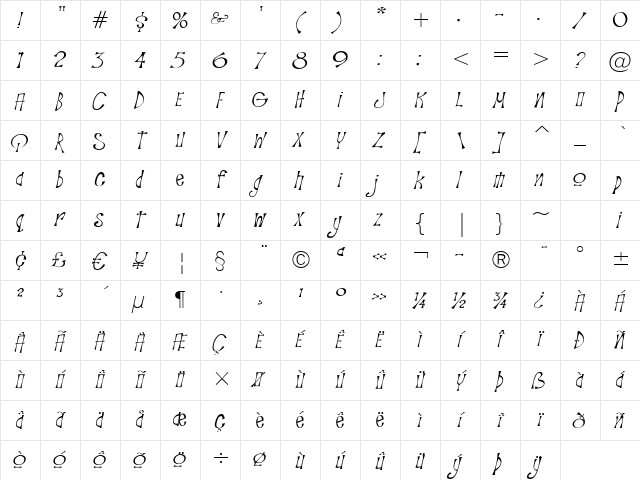
Troutkings BTN Light Oblique Free Font
Troutkings BTN Light Oblique
Design Context for Troutkings BTN Light
Troutkings BTN Light is a composed and adaptable typeface that performs quietly and consistently across a wide range of design contexts. The slanted form adds forward momentum and visual energy. Its slender proportions lend an understated elegance to any composition.